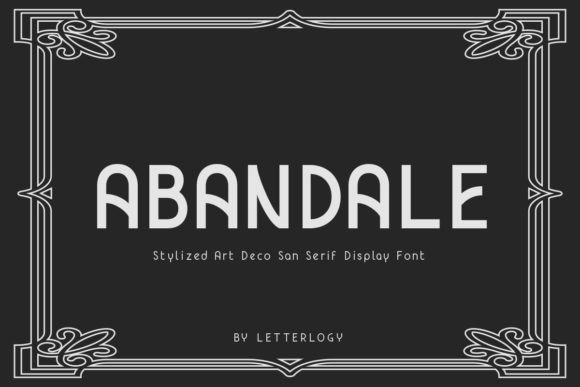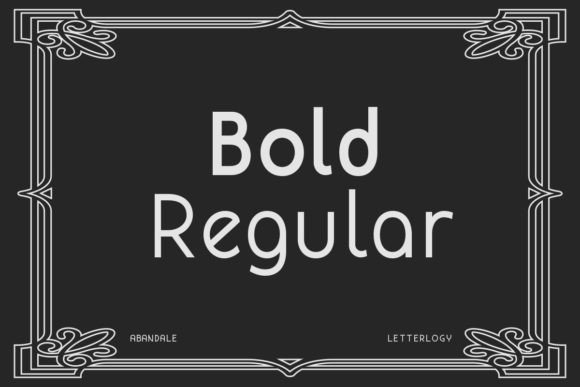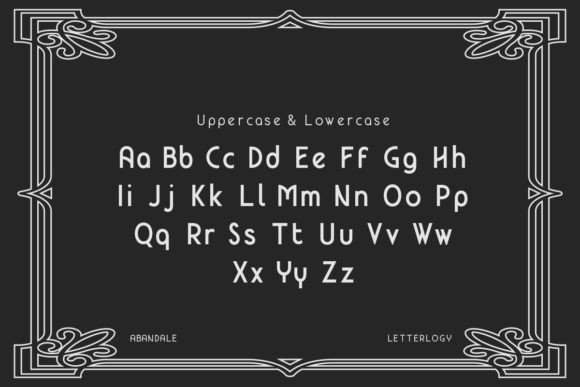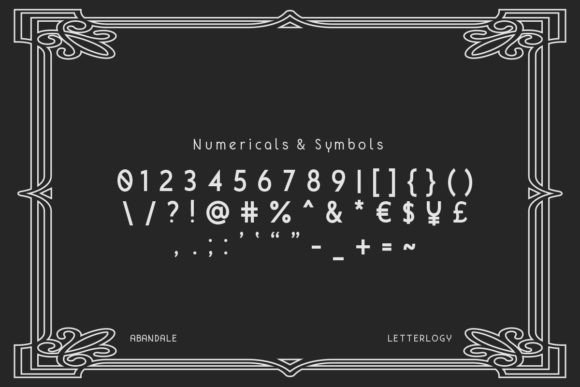
Abandale Font: Classic Art Deco Sans Serif for Vintage Logo Design
About the Abandale Font
We are excited to introduce Abandale Font, a must-have typeface for any serious designer. Abandale is a stylized Art Deco sans serif display font that combines readability and personality into one package.
Its distinct form and appearance aim to give more style to your classic, vintage, and retro-themed designs as well as projects.
Abandale excels as a headline font for posters, branding materials, and short-form text on packaging. Its strong Art Deco influences make it ideal for projects needing a vintage or retro feel, adding a touch of sophistication and boldness. However, its stylized forms make it unsuitable for body copy or UI elements where high readability is paramount. Long paragraphs set in Abandale would be difficult to read.
The font’s personality is confident and stylish, yet retains a degree of classic elegance. It’s a perfect fit for brands aiming for a timeless, high-end aesthetic.
For effective pairings, consider pairing Abandale with a clean sans-serif like Helvetica Neue for body text, or a classic serif such as Garamond for a more traditional contrast. A playful script font could also work well for secondary text elements, providing a nice textural balance.